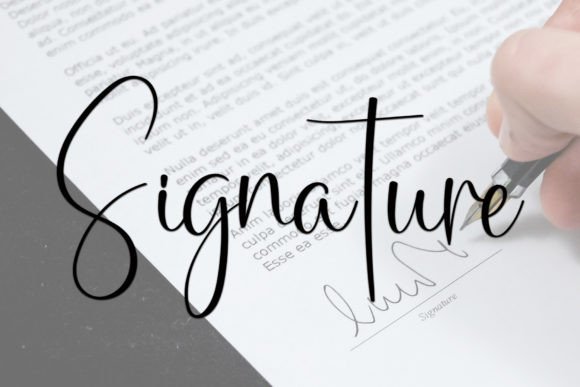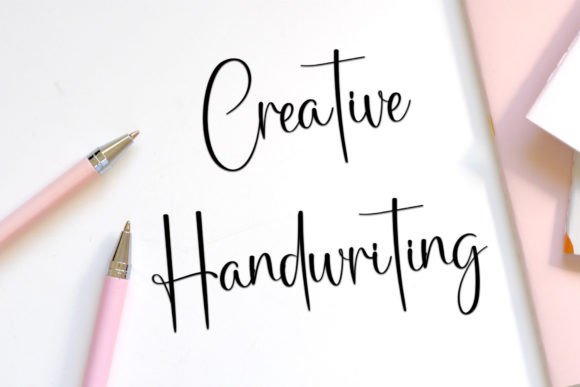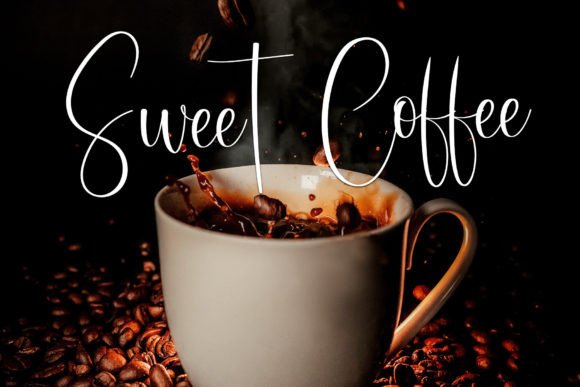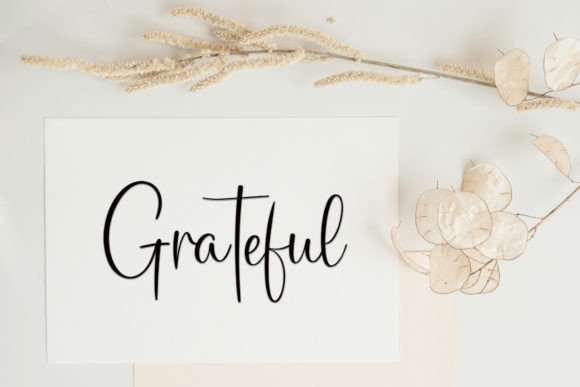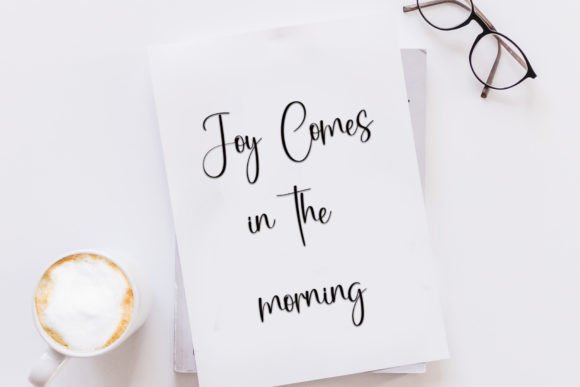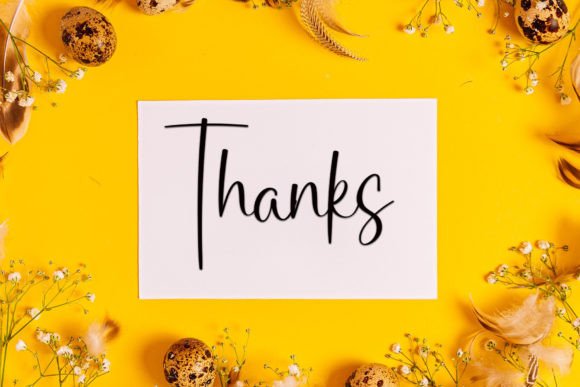
Discover the Charm of Good Vibes Font: Elevate Your Designs with Elegance
In the world of typography, fonts play a crucial role in conveying the tone and personality of a design. For crafters, designers, and anyone looking to add a touch of elegance to their projects, the Good Vibes Font is a gem worth exploring. This beautifully crafted handwritten font is not just a typeface; it’s an experience that brings a distinct and timeless style to your designs.
The Essence of Good Vibes Font
Good Vibes is described as a neat and beautiful handwritten font, characterized by an elegant touch that sets it apart from more common typefaces. Its design is meticulously crafted to provide an air of sophistication and charm, making it perfect for a wide range of projects. Whether you’re working on wedding invitations, branding materials, or personal crafts, Good Vibes Font offers the versatility and aesthetic appeal to elevate your work.
Distinct and Timeless Style
The standout feature of Good Vibes Font is its incredibly distinct style. In a digital age where trends come and go, this font offers a timeless quality that ensures your designs remain stylish and relevant for years to come. The elegant touch infused in its design makes it versatile enough to be used in both formal and casual settings, providing the perfect balance for any project.
Perfect for Your Favorite Projects
Good Vibes Font is more than just a typeface; it’s a creative tool designed to bring your ideas to life. Here are a few ways you can use this beautiful font in your projects:
- Wedding and Event Planning: Add a touch of elegance to your wedding invitations, programs, and event branding with Good Vibes Font.
- Branding and Marketing: Use the font to create a unique and memorable brand identity that stands out from the competition.
- Stationery and Crafts: Whether you’re designing custom stationery, making crafts, or creating DIY projects, Good Vibes Font can add a personalized and sophisticated touch.
- Digital Content: Enhance your digital content, such as blog posts, social media graphics, and presentations, with a font that exudes elegance and charm.
Why Choose Good Vibes Font?
With so many fonts available, what makes Good Vibes Font a preferred choice for designers and crafters? Here are a few reasons:
- Elegance: The font’s elegant design makes it suitable for projects that require a touch of sophistication.
- Versatility: Good Vibes Font can be used across various projects, from formal to casual, without losing its charm.
- Timelessness: Its classic style ensures that your designs won’t go out of fashion anytime soon.
- Easy to Read: Despite its elegant and handwritten nature, Good Vibes Font remains clear and easy to read, making it functional as well as beautiful.
Good Vibes Font is a beautiful addition to any designer’s or crafter’s toolkit. Its elegant touch, distinct style, and timeless charm make it the perfect choice for a wide range of projects. By incorporating Good Vibes Font into your work, you’re not just choosing a typeface; you’re elevating your designs with a touch of sophistication and elegance. So, fall in love with the Good Vibes Font and let it guide you in creating spectacular designs that leave a lasting impression.